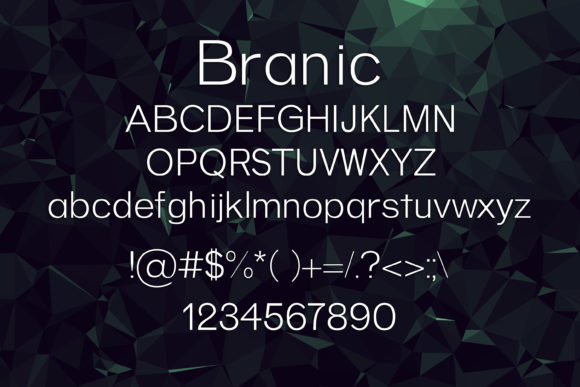
Branic Font: A Modern Twist on Traditional Sign Painting
In the world of typography, fonts play a crucial role in conveying messages, expressing creativity, and setting the tone for a brand’s identity. For designers and crafters, finding the perfect font can be a daunting task, especially when looking for something that combines modernity with a touch of tradition. This is where Branic Font comes in – a stunning sans serif font that draws inspiration from traditional sign painting, with a modern twist.
The Inspiration Behind Branic Font
Branic Font is a unique blend of old and new, combining the classic techniques of sign painting with the simplicity and elegance of modern sans serif fonts. The result is a clean and minimal font that is perfect for modern designs. The font’s creator aimed to capture the essence of traditional sign painting, while making it suitable for contemporary projects.
Key Features of Branic Font
- Clean and Minimal Design: Branic Font boasts a sleek and minimalist design, making it perfect for designs that require a touch of sophistication.
- Traditional Sign Painting Inspiration: The font’s unique style is inspired by traditional sign painting, giving it a distinctive and authentic feel.
- Modern Twist: Branic Font’s modern twist makes it suitable for a wide range of design projects, from logos and branding to packaging and advertising.
- Sans Serif Design: The font’s sans serif design ensures that it remains clean and legible, even at small sizes.
Use Cases for Branic Font
Branic Font is a versatile font that can be used in a variety of design projects, including:
- Logo Design: Create a stunning logo for your brand with Branic Font, perfect for businesses that want to convey a sense of modernity and sophistication.
- Branding and Identity: Use Branic Font to create a consistent brand identity across various platforms, including business cards, letterheads, and website headers.
- Packaging Design: Add a touch of elegance to your packaging designs with Branic Font, perfect for food, beverage, and lifestyle products.
- Advertising and Marketing: Use Branic Font in your advertising and marketing materials, including billboards, flyers, and brochures.
Why Choose Branic Font?
With so many fonts available, why choose Branic Font? Here are a few reasons:
- Unique Style: Branic Font’s unique blend of traditional sign painting and modern sans serif design makes it stand out from other fonts.
- Versatility: The font’s versatility makes it suitable for a wide range of design projects, from logos and branding to packaging and advertising.
- Easy to Read: Branic Font’s clean and minimal design ensures that it remains easy to read, even at small sizes.
Tips for Using Branic Font
Here are a few tips for using Branic Font in your design projects:
- Use it as a Headline Font: Branic Font is perfect for headlines and titles, where its unique style can really shine.
- Pair it with Other Fonts: Experiment with pairing Branic Font with other fonts to create a unique and visually appealing design.
- Adjust the Size and Color: Play around with different sizes and colors to find the perfect combination for your design.
In conclusion, Branic Font is a stunning sans serif font that combines the best of traditional sign painting with modern design principles. Its clean and minimal design makes it perfect for modern designs, while its unique style sets it apart from other fonts. Whether you’re a designer or crafter, Branic Font is definitely worth checking out for your next project.